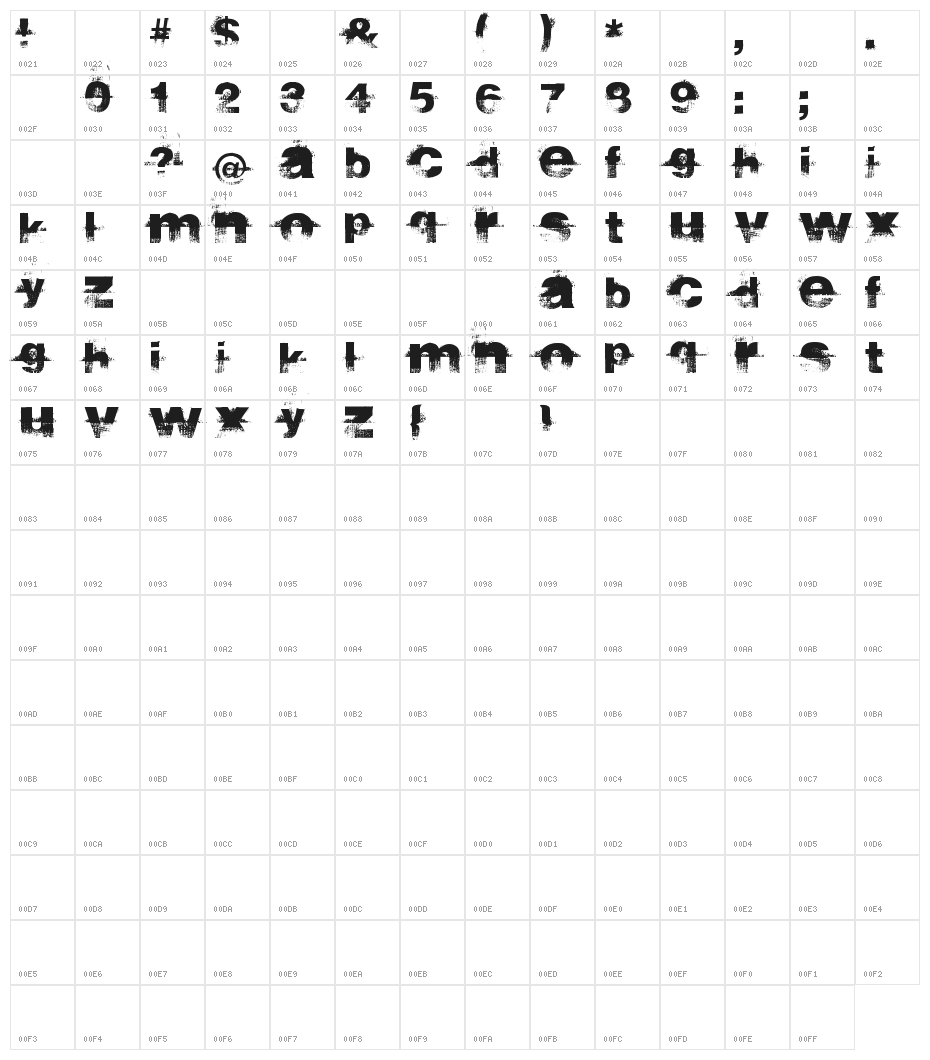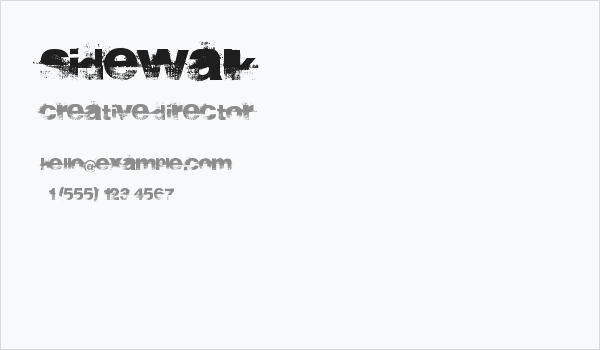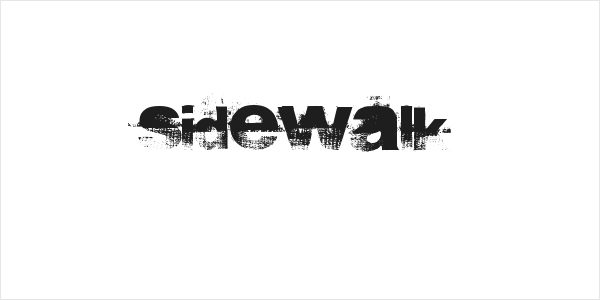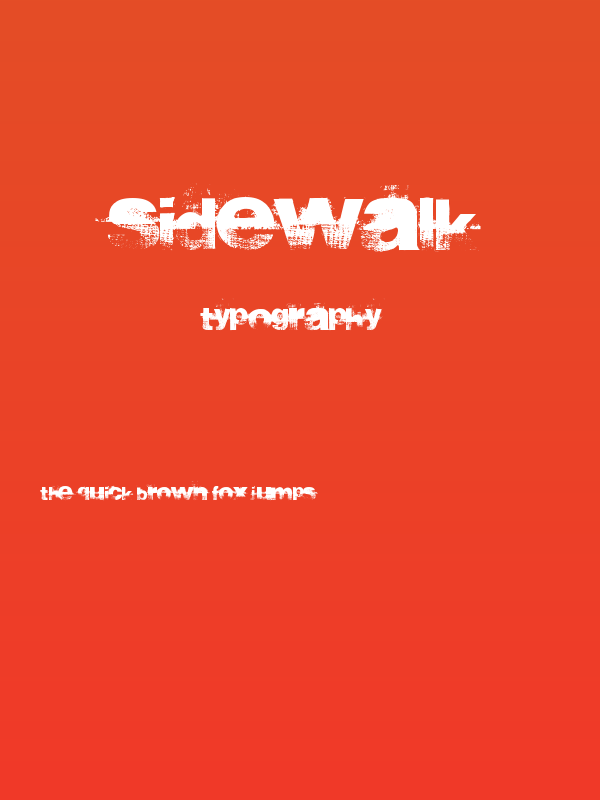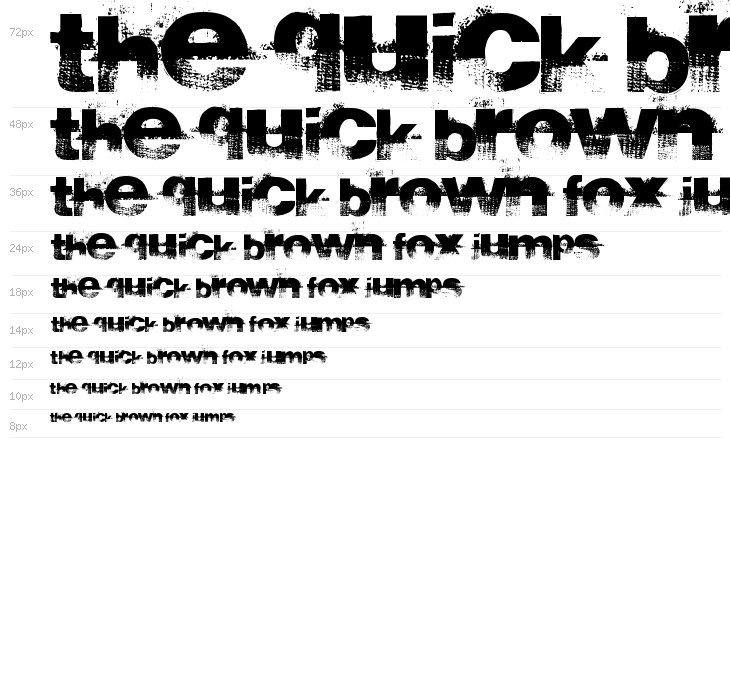
sidewalk Font
sidewalk Description
This font features a distressed and grunge aesthetic, characterized by its rough, textured appearance that mimics the look of worn-out or weathered surfaces. The letters are bold and have a substantial weight, with a sans-serif style that gives them a modern yet rugged feel. The texture varies across the characters, adding an element of unpredictability and visual interest. This font is ideal for projects that aim to convey a sense of edginess or urban style, making it suitable for use in posters, album covers, or any design that benefits from a gritty, street-inspired look.
| Overall Style | Grunge, Urban |
| Proposed Projects | Ideal for urban-themed designs, music album covers, posters, and streetwear branding. |